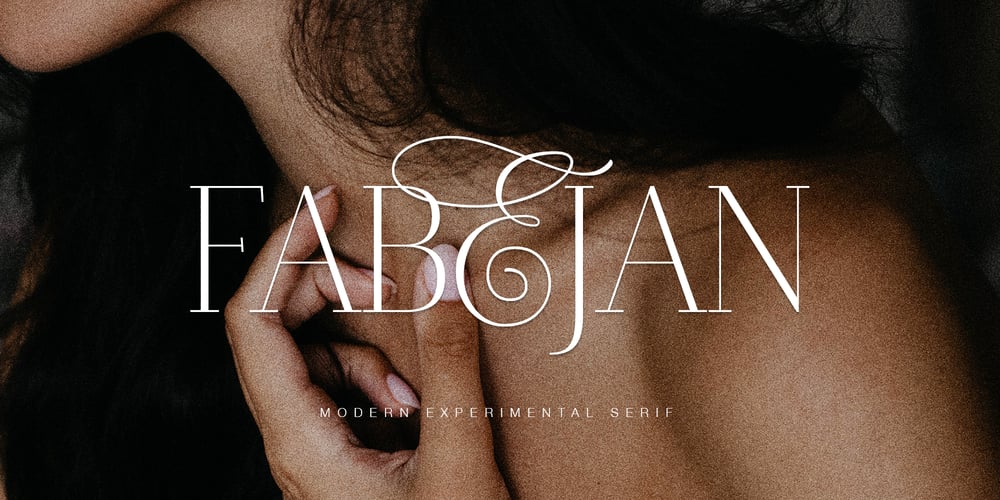
Fabejan Font Family was designed by Dmitrii Chirkov and published by Supfonts. Fabejan contains 1 styles and family package options. Fabejan a perfect mixed calligraphy and modern serifFont is an open type with clean shapes and precise kerning.Fabejan Font Features:- Full Set of standard alphabet and punctuation- PUA Encoded – no special software needed to access extra characters- **Language support**: All European languages- Multilingual Characters AÁĂÂÄÀĀĄÅÃÆBCĆČÇĊDÐĎĐEÉĚÊËĖÈĒĘẼFGĞĢĠḠHĦIIJÍÎÏİÌĪĮĨJKĶLĹĽĻŁMNŃŇŅÑ OÓÔÖÒŐŌØÕŒPÞQRŔŘŖSŚŠŞȘẞTŤŢȚUÚÛÜÙŰŪŲŮŨVWẂŴẄẀXYÝŶŸỲỸZŹŽŻ aáăâäàāąåãæbcćčçċdðďđeéěêëėèēęẽfgğģġḡhħiıíîïìijīįĩjȷkķlĺľļłmnńňņñoóôöòőōøõœpþ qrŕřŗsśšşșßtťţțuúûüùűūųůũvwẃŵẅẁxyýŷÿỳỹzźžżThanks so much for checking out my shop, and please get in touch if you have any questions!Don’t forget to subscribe so you don’t miss out on the new awesome fontsDima